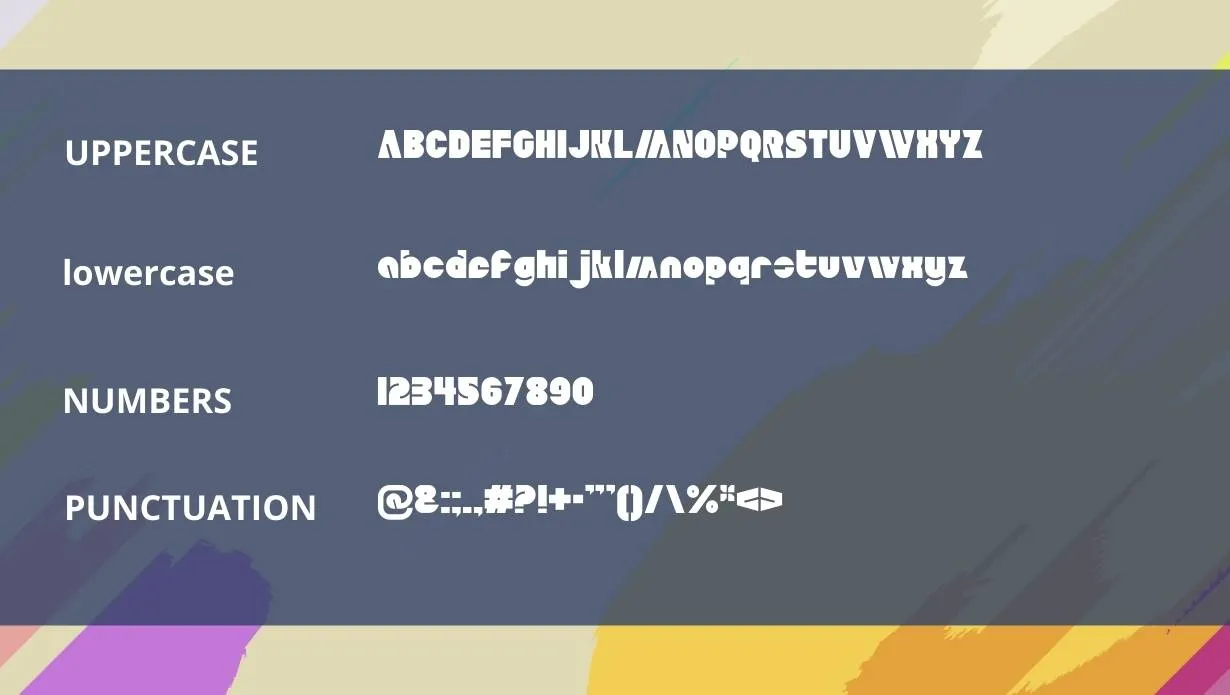
Aldo Font is a typeface designed by Aldo Novarese and released by Nebiolo in 1952. The design is based on an earlier typeface called Novella, which was also designed by Aldo Novarese and released by the Nebiolo foundry in 1950.
It has a condensed texture style and has a pairing personality with other sans-serif style typefaces just like avenir font because it has bold characters and glyphs.
Aldo Font Info
| Name | Aldo Font |
| Designer | Aldo Novarese |
| Style | Display |